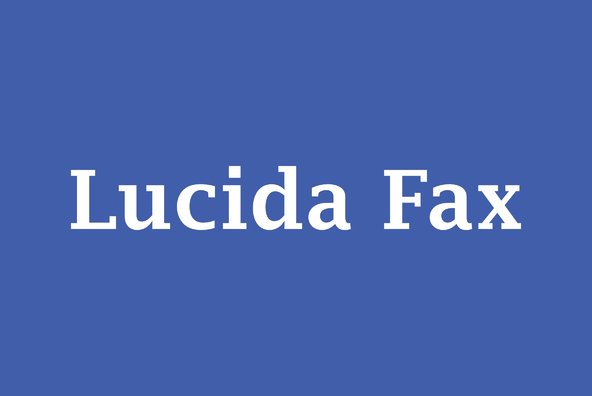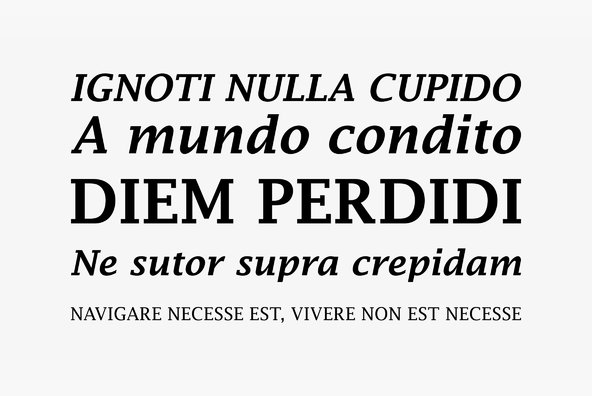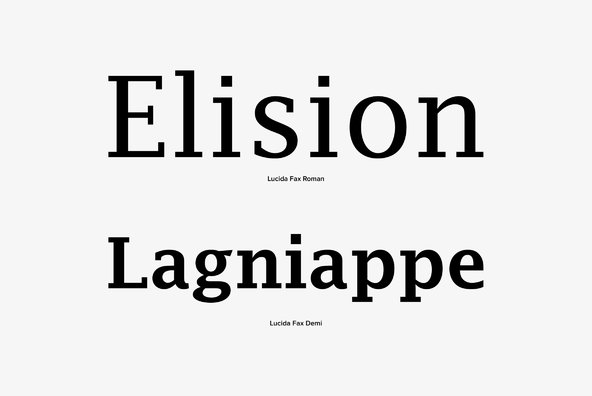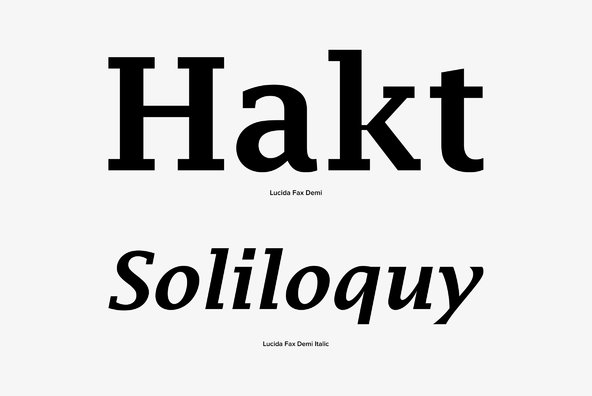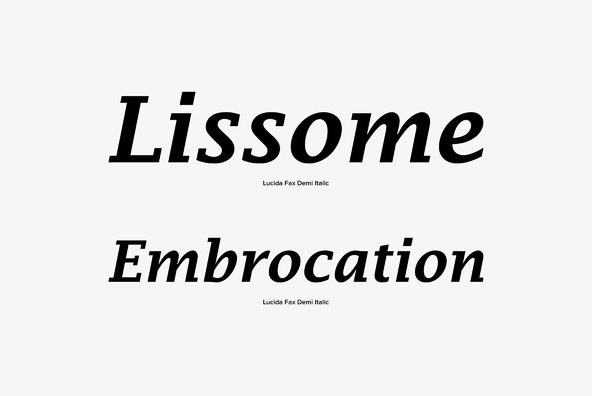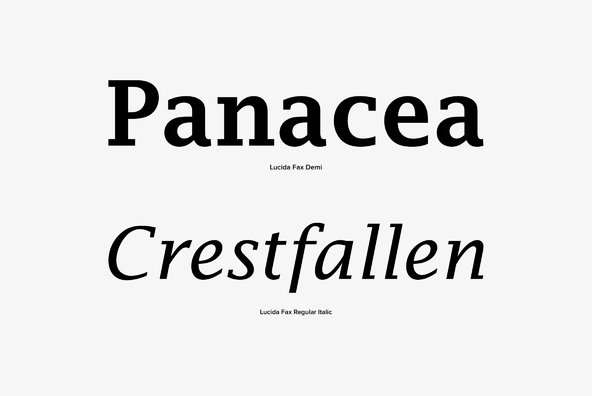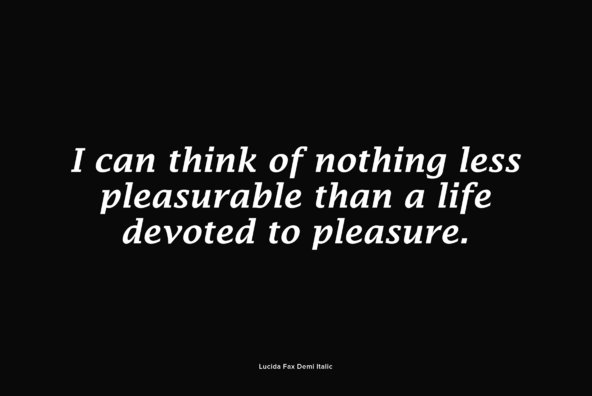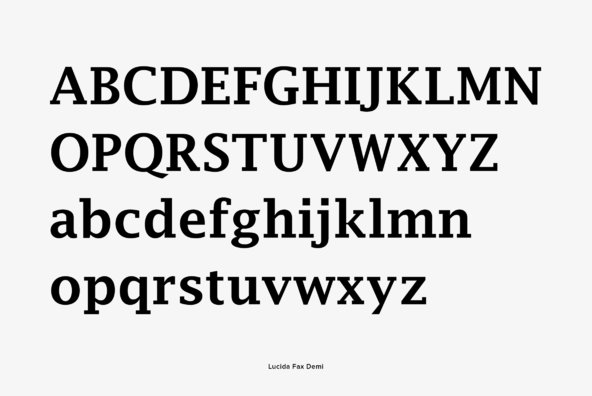
Lucida Fax
Designed by Charles Bigelow and Kris Holmes in 2003, Lucida Fax is a slab serif release by URW. Contains language support for West, East, Turkish, Baltic, and Romanian.